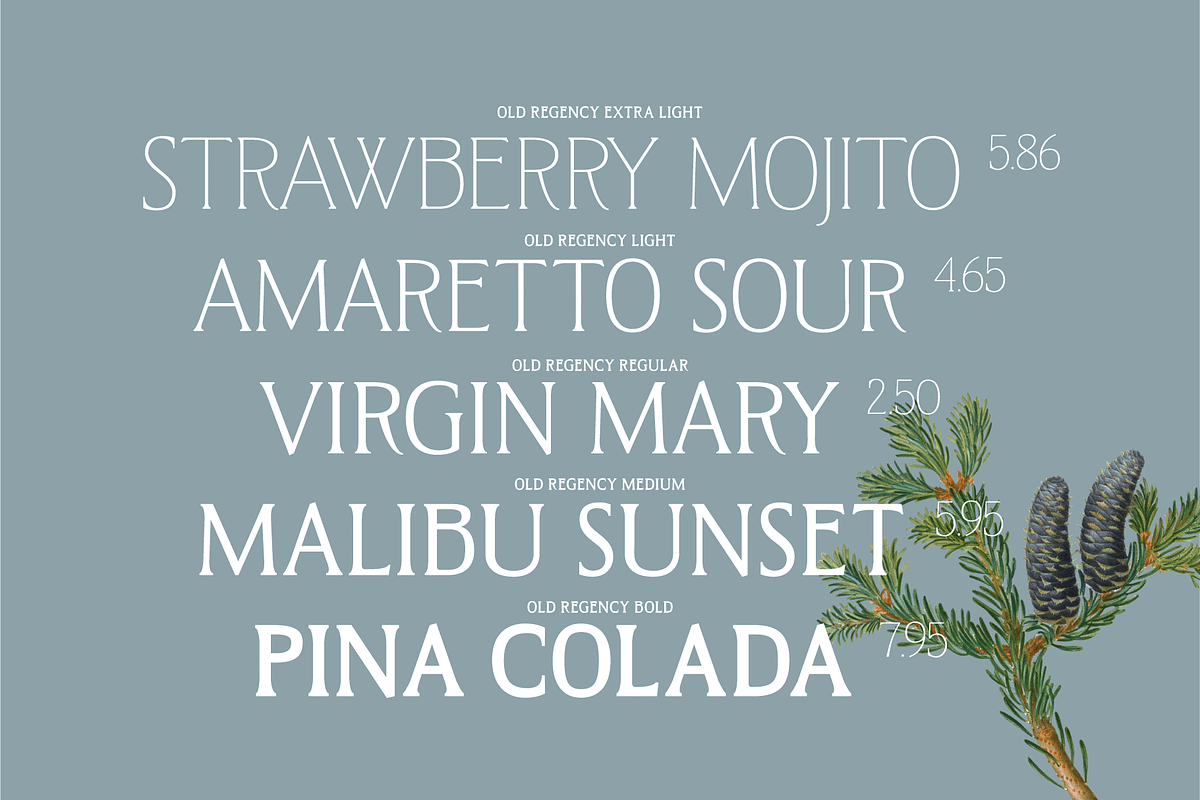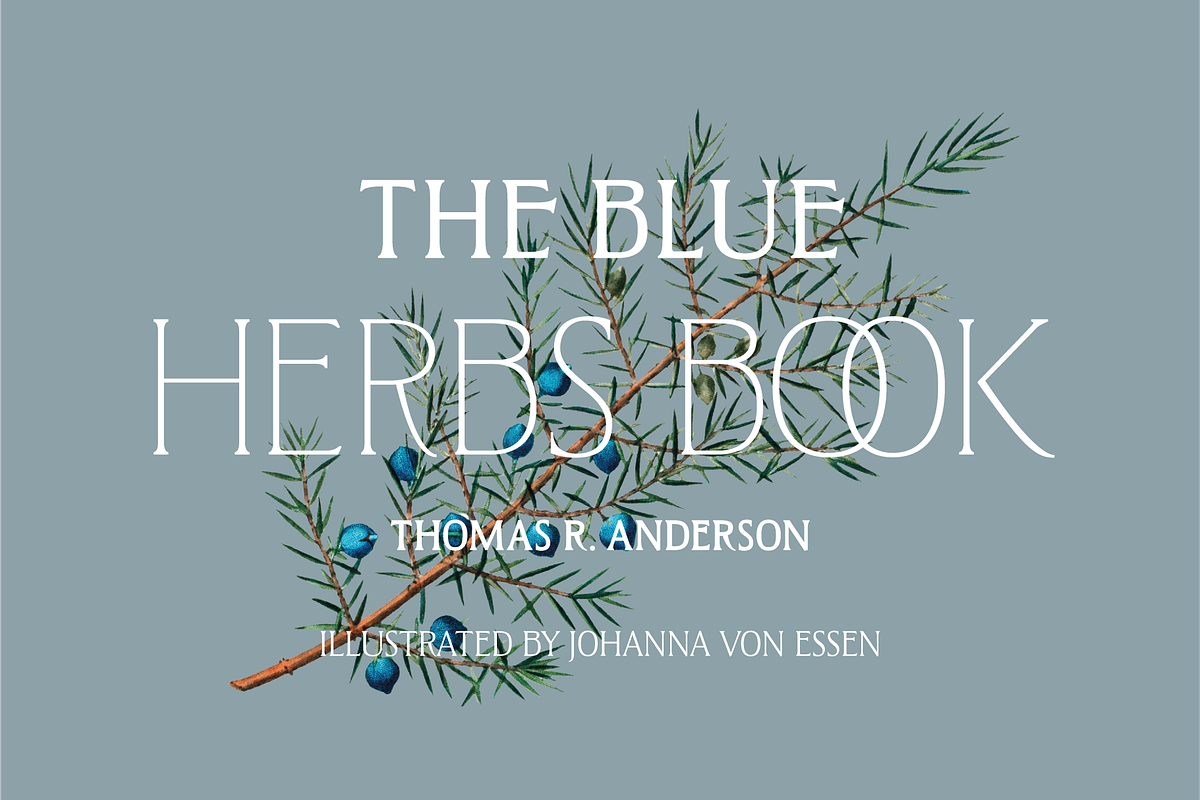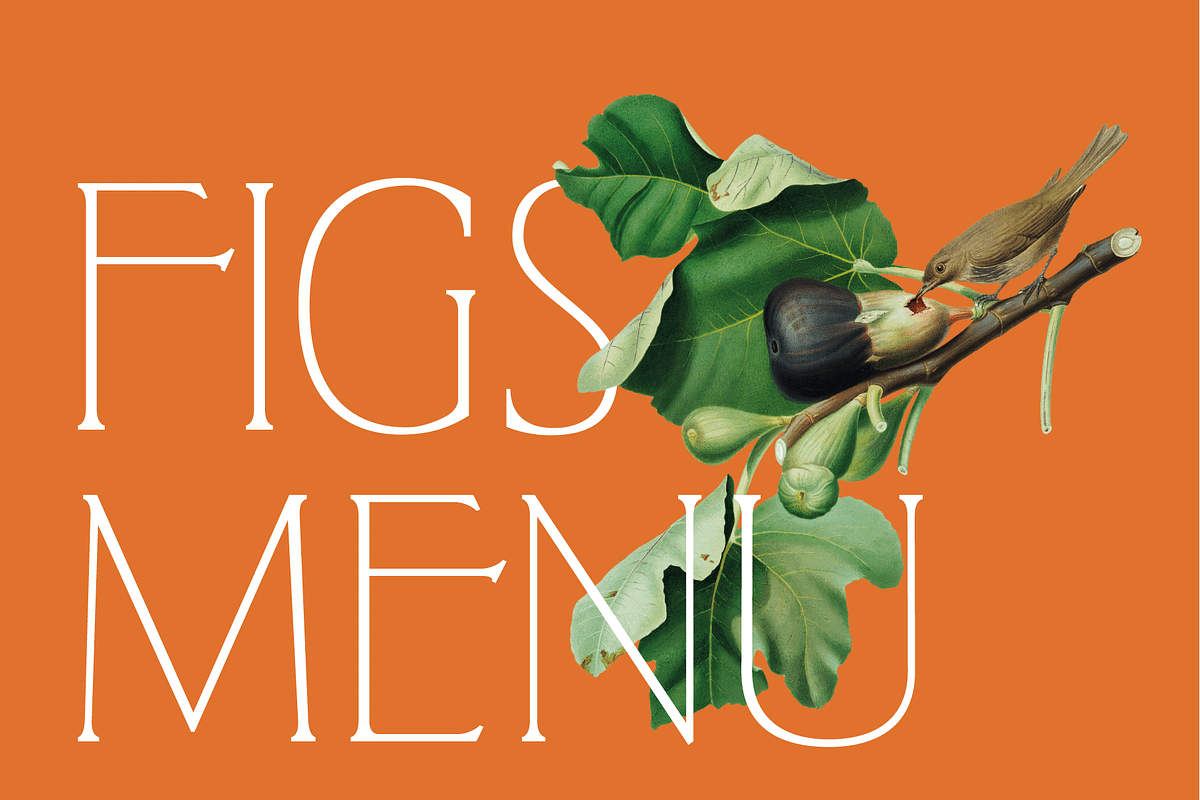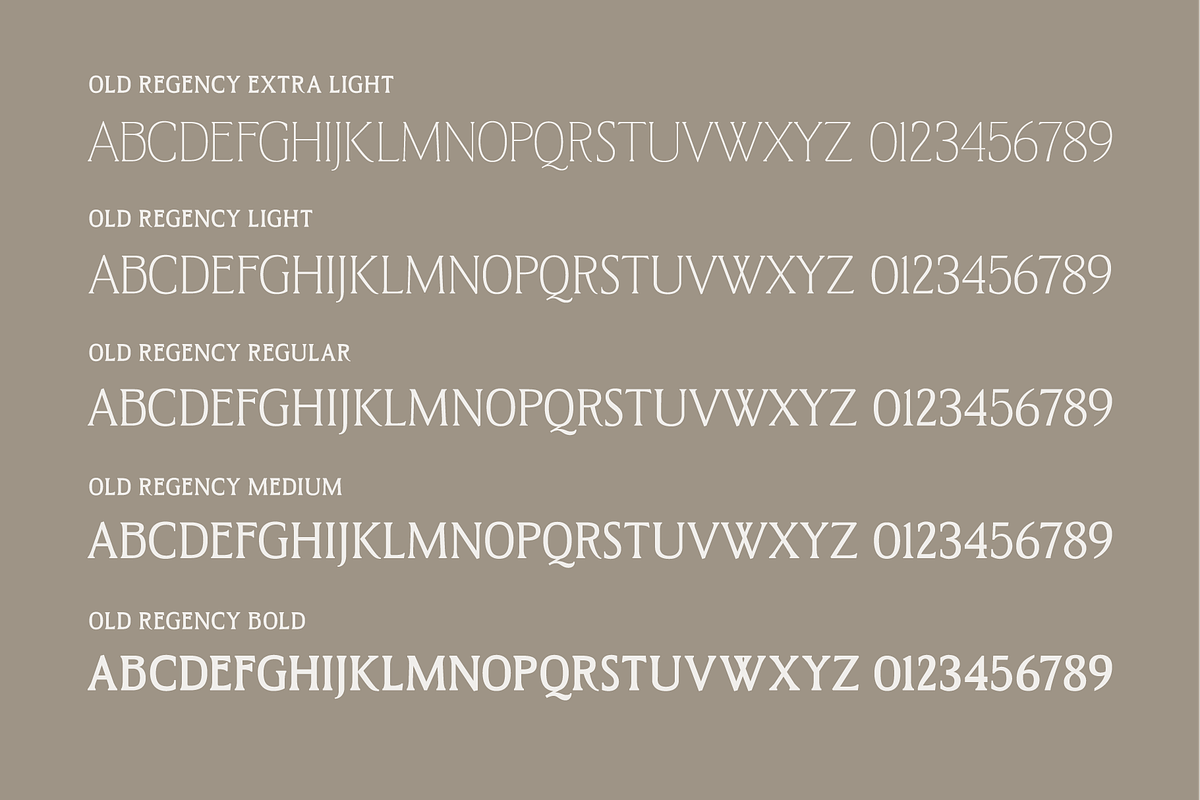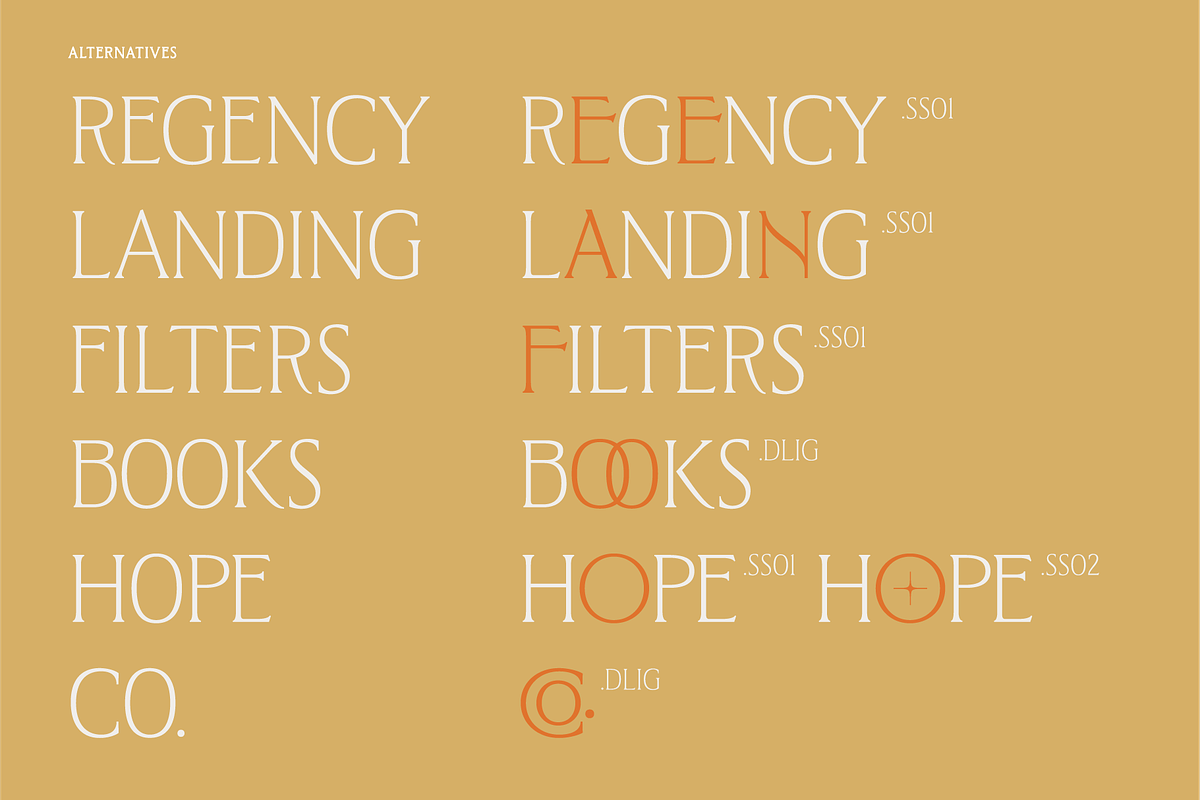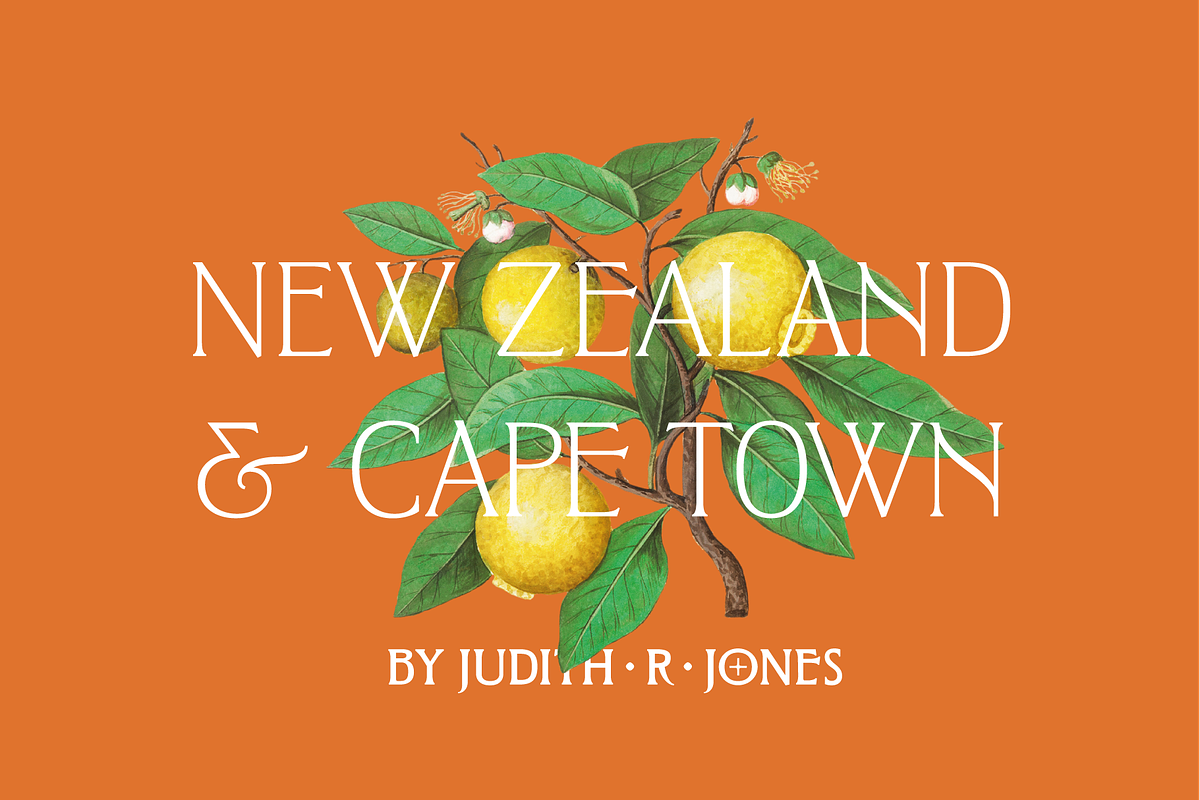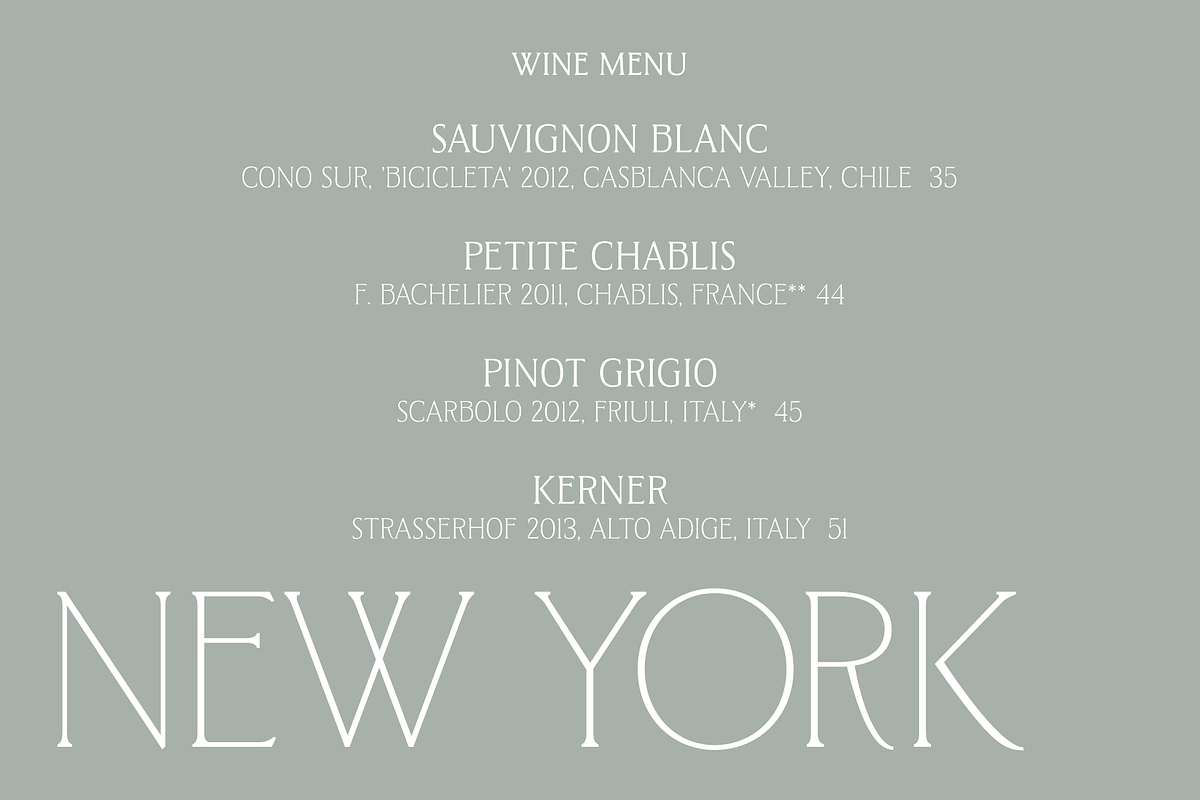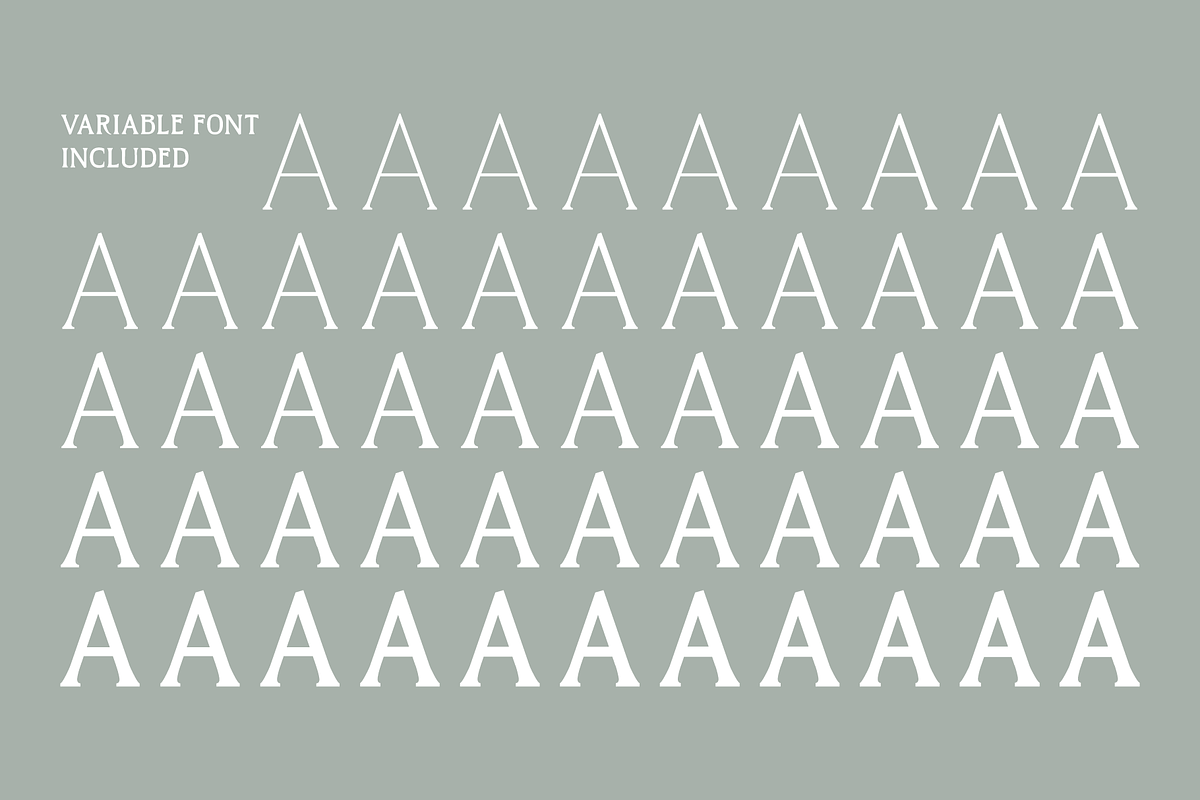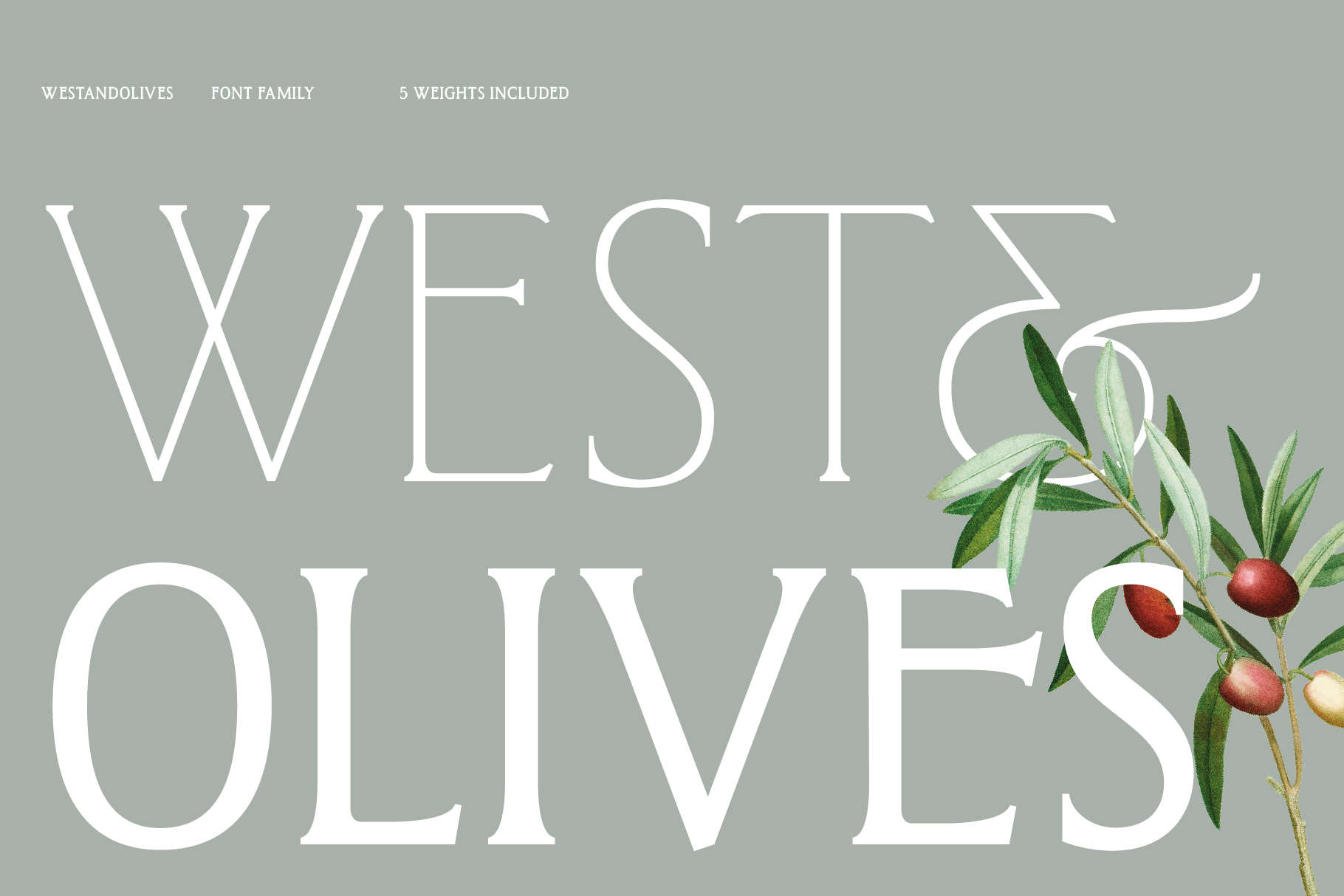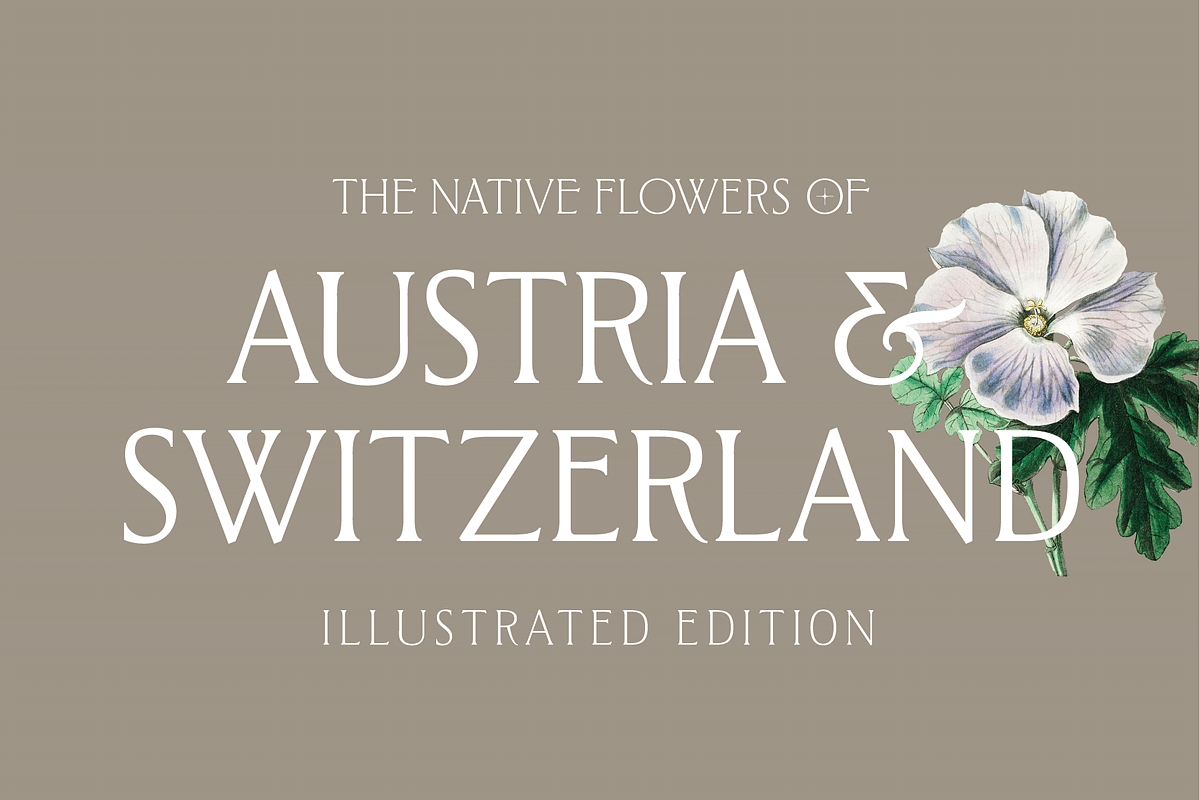
West and Olives (6 fonts + variable)
Go grab yourself some 'West & Olives' This five weight font family will provide you with a range of Light to Bold variations. Ideal for a branding project that needs a bit of range in style.
The font family defining feature is its unique set of uppercase and alternate characters allow you to change up your design even more.